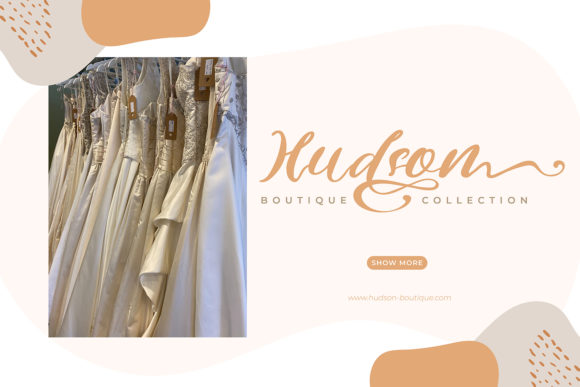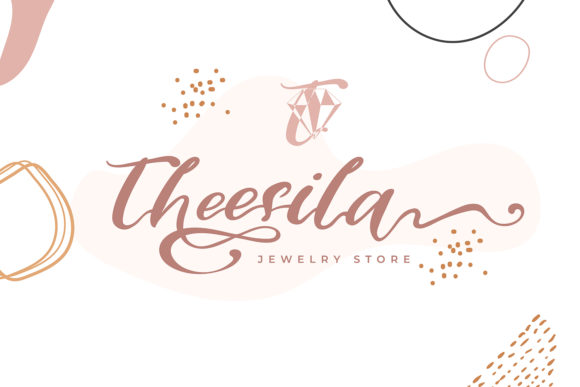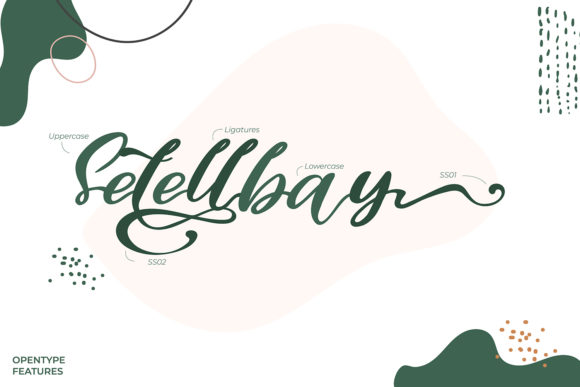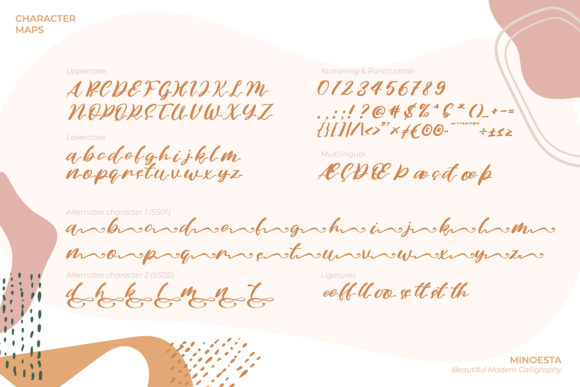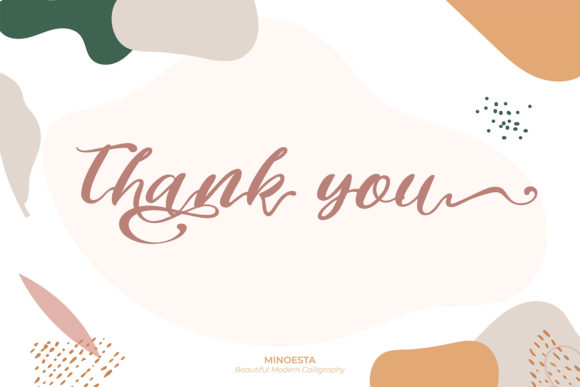
Introduction to Minoesta Font Font
Fonts play a crucial role in design, and the Minoesta Font font is a typeface that brings both character and versatility to any project. Whether you’re working on a branding project, a website, or a print design, the Minoesta Font font offers a unique style that can elevate your work.
Minoesta is a beautiful and dainty handwritten font.
It is PUA encoded which means you can access all of the glyphs and swashes with ease Fall in love with its incredibly distinct and timeless style and use it to create spectacular designs.
Key Features of Minoesta Font Font
The Minoesta Font font is more than just a typeface – it’s a design tool that helps you communicate your message with style and clarity. Its unique character set and versatile design make it suitable for a wide range of applications, from elegant invitations to bold headlines.
With its carefully crafted letterforms and balanced proportions, the Minoesta Font font ensures readability and visual appeal across all mediums.
What makes Minoesta Font font special?
The Minoesta Font font stands out with its unique design, exceptional readability, and versatility across various design applications.